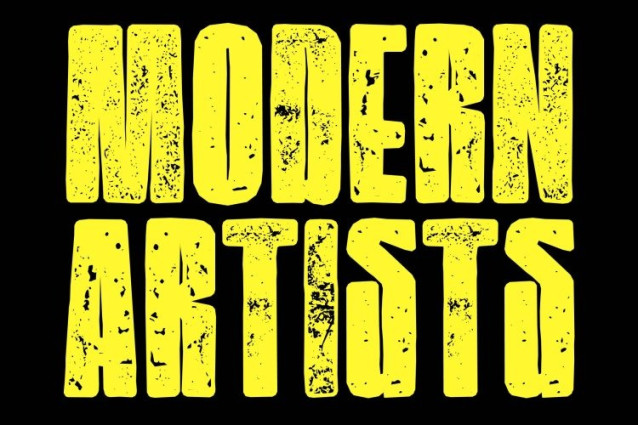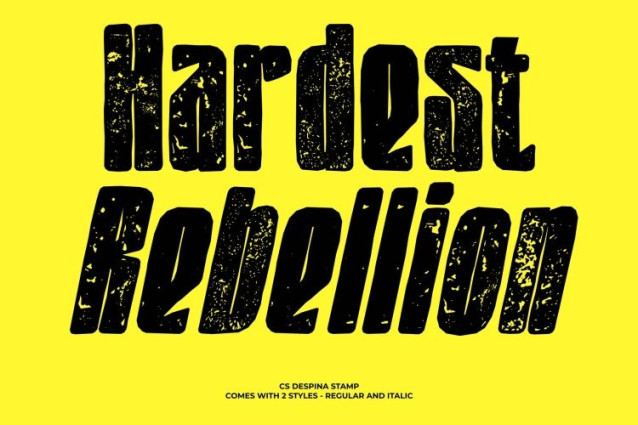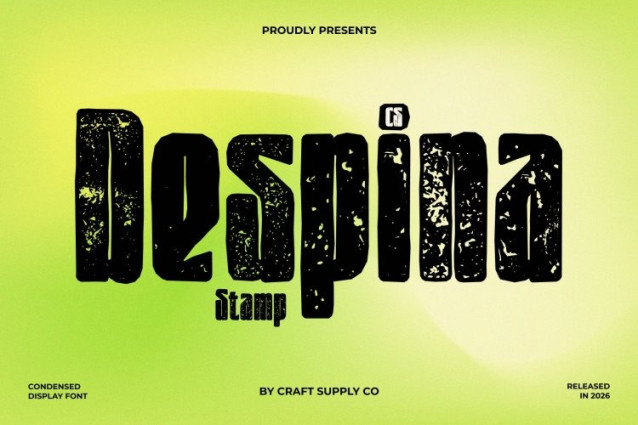
CS Despina Stamp Font
CS Despina Stamp Font – This is a modern sans-serif display font defined by its bold presence and condensed proportions. The sleek, compact letterforms create a confident and contemporary impression, making it ideal for designs that require both sophistication and strong visual impact.
Bold, Condensed, and Space-Efficient
Its narrow structure allows more content to fit into limited space without sacrificing clarity. This makes the font especially effective for headlines, posters, banners, and layouts where readability and efficiency are equally important.
Clean Aesthetic for Modern Versatility
With crisp lines and balanced proportions, this font adapts effortlessly to a wide range of modern design applications. From branding and packaging to social media graphics and digital interfaces, it provides a polished and cohesive visual identity.
Perfect for Strong and Professional Visuals
Combining boldness with elegance, this font delivers a confident tone that enhances contemporary projects. It’s an excellent choice for designers seeking a condensed typeface that communicates clarity, strength, and modern style.